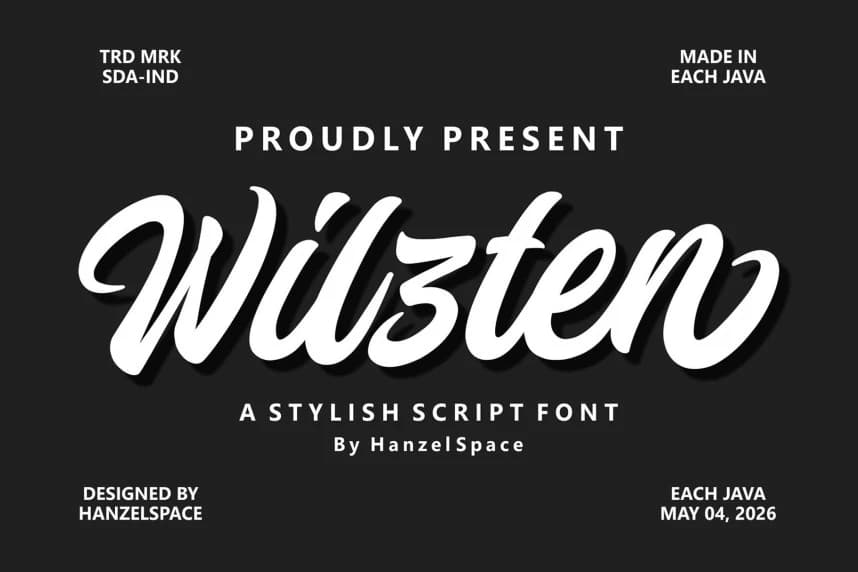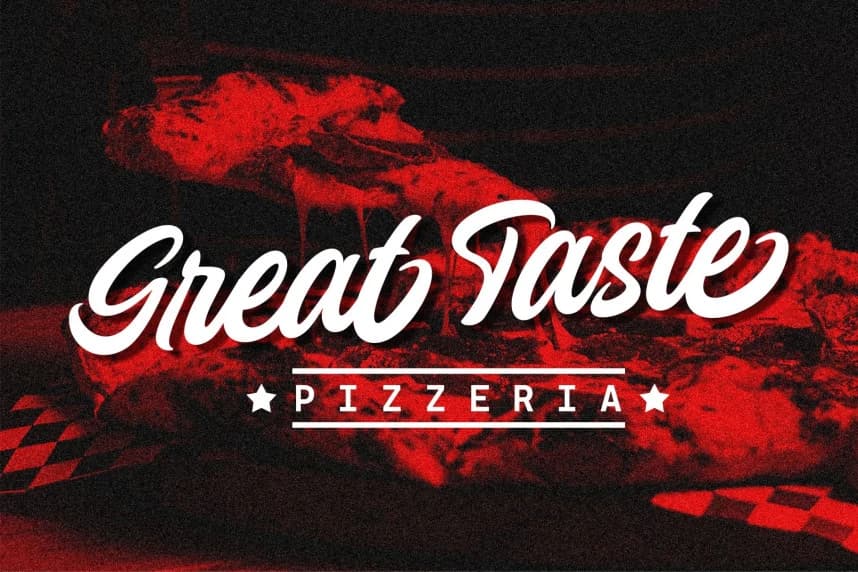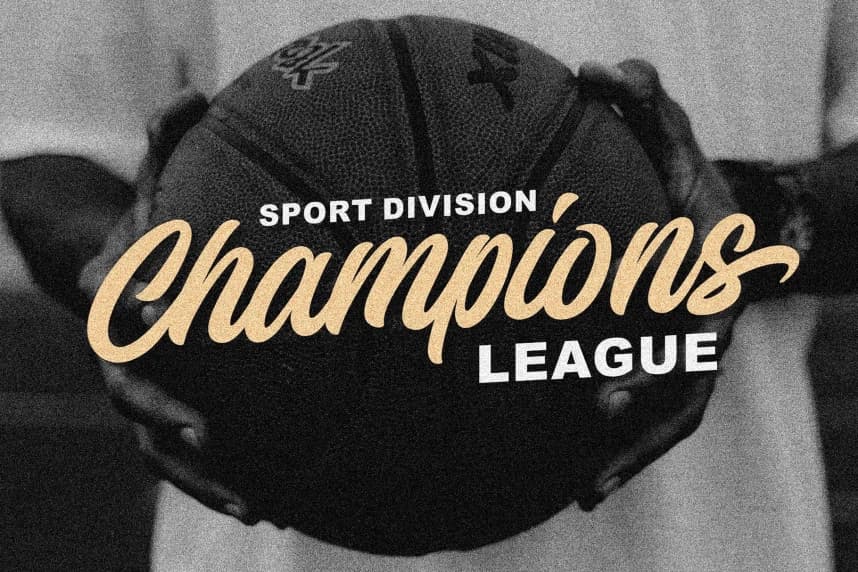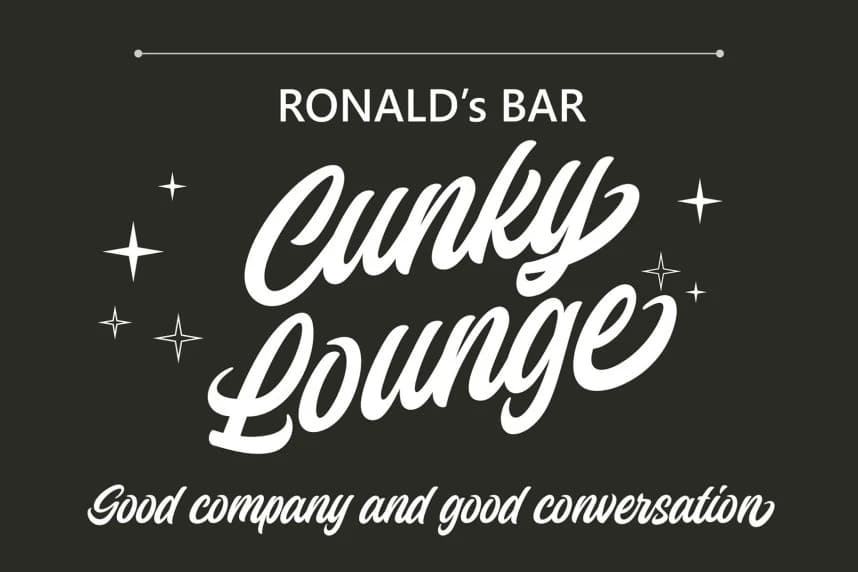
Wilzten Script Font
Wilzten Script Font – A Stylish Script Font with is an amazing brush script font with a dynamic and energetic style.It can be used for various purposes such as titles, signatures, logotypes, t-shirt designs, letterheads, signage’s, labels, newsletters
Wilzten Script